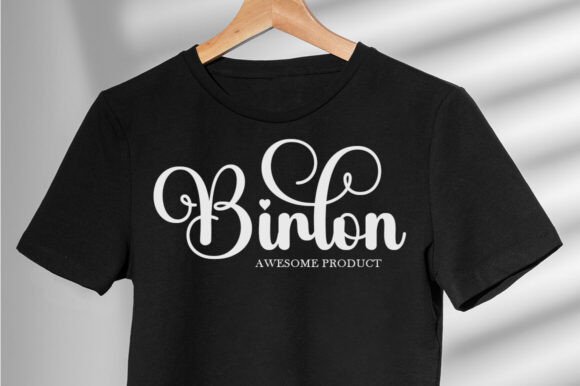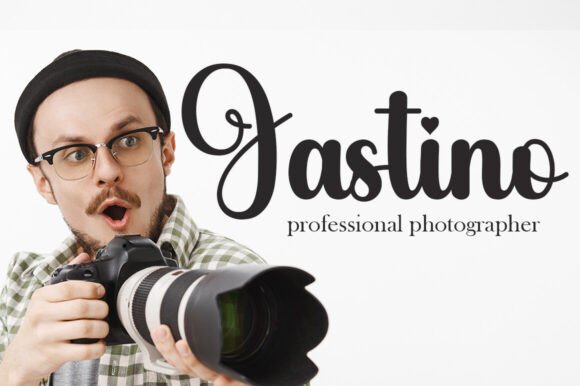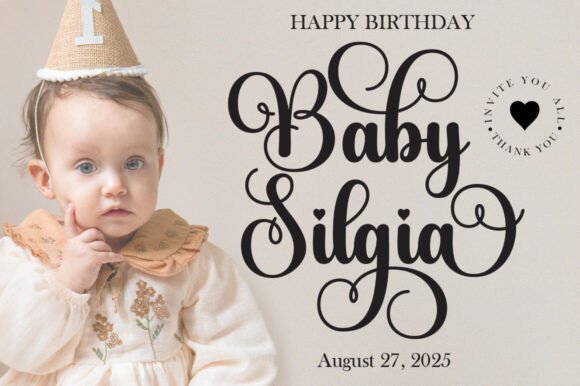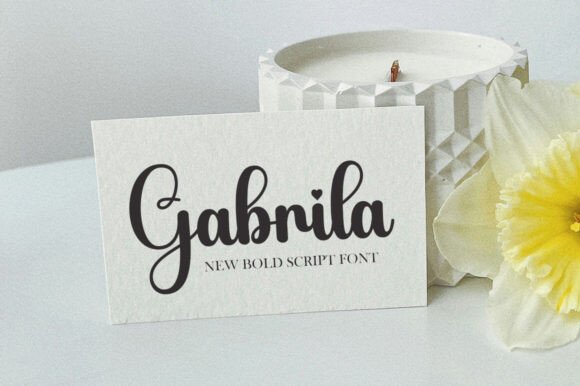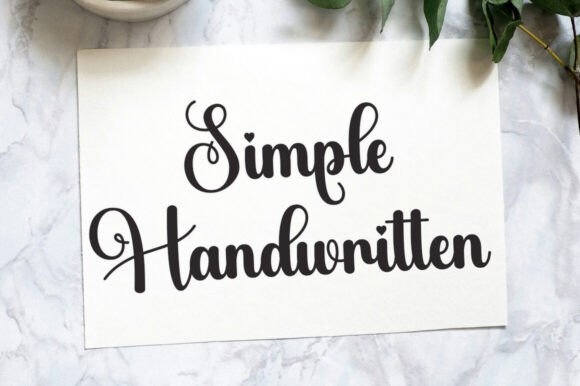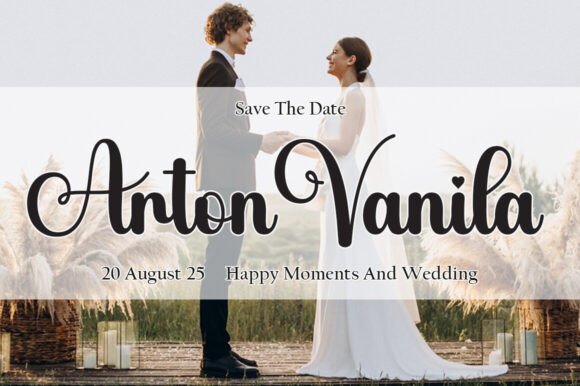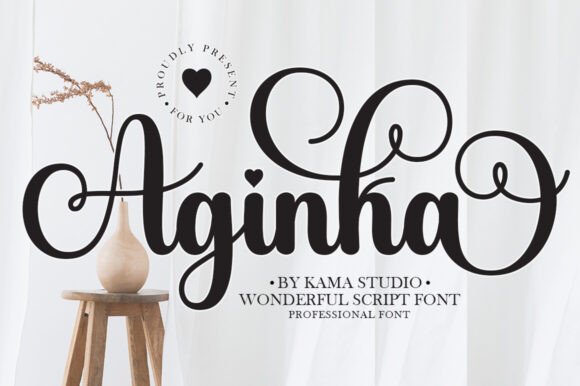
Introducing Aginka Font: The Ultimate Romantic Calligraphy Typeface
Are you a designer or crafter looking for a font that exudes romance and sweetness? Look no further than Aginka Font, a stunning calligraphy typeface that is sure to capture the hearts of your audience. With its unique dancing characters and elegant design, Aginka is the perfect choice for a variety of creative projects, from wedding invitations to business cards.
The Beauty of Aginka Font
Aginka Font is a romantic and sweet calligraphy typeface that features characters that dance along the baseline, creating a sense of movement and fluidity. This beautiful design makes it perfect for projects that require a touch of elegance and sophistication. Whether you’re designing a wedding invitation, a thank you card, or a quote, Aginka Font is sure to add a touch of romance and whimsy.
Aginka Font is incredibly versatile and can be used for a wide range of projects, including:
- Wedding invitations: Add a touch of romance and elegance to your wedding invitations with Aginka Font.
- Thank you cards: Express your gratitude in style with Aginka Font’s beautiful calligraphy.
- Quotes: Add a touch of whimsy and personality to your quotes with Aginka Font’s dancing characters.
- Greeting cards: Create beautiful and unique greeting cards for any occasion with Aginka Font.
- Logos: Use Aginka Font to create a stunning logo for your business or brand.
- Business cards: Add a touch of elegance and sophistication to your business cards with Aginka Font.
Why Choose Aginka Font?
So why choose Aginka Font for your next project? Here are just a few reasons:
- Unique and elegant design: Aginka Font features a unique and elegant design that is sure to capture the hearts of your audience.
- Versatile: Aginka Font can be used for a wide range of projects, from wedding invitations to business cards.
- High-quality: Aginka Font is a high-quality font that is designed to produce stunning results.
Tips for Using Aginka Font
Here are a few tips for using Aginka Font in your designs:
- Use it sparingly: Aginka Font is a beautiful font, but it can be overwhelming if used too much. Use it sparingly to add a touch of elegance and sophistication to your designs.
- Pair it with other fonts: Aginka Font pairs well with other fonts, such as sans serif fonts. Experiment with different pairings to find the perfect combination for your design.
- Experiment with colors: Aginka Font looks stunning in a variety of colors. Experiment with different colors to find the perfect one for your design.